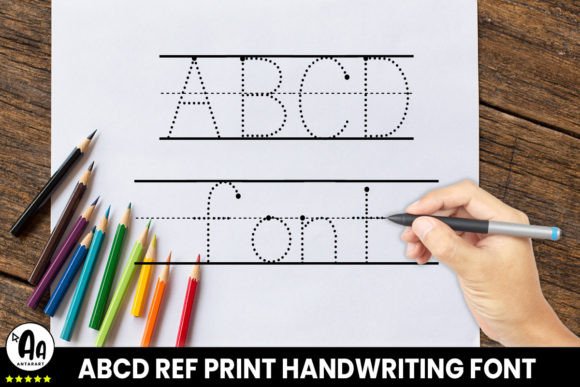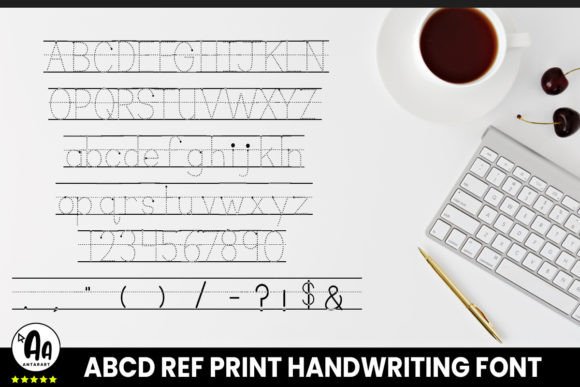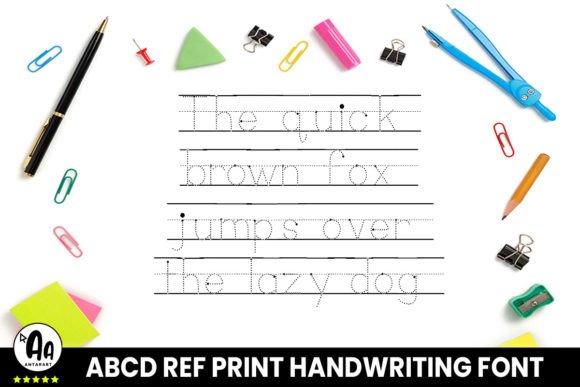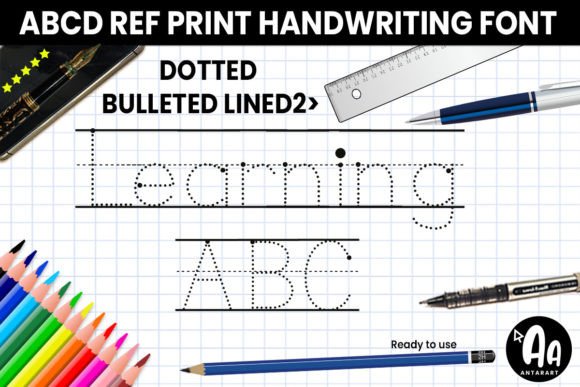
Unlock Creative Learning with Abcd Ref Dotted Bulleted Lined2 Font
Are you a designer, educator, or crafter looking for a fun and interactive way to teach or learn the print alphabet? Look no further than the Abcd Ref Dotted Bulleted Lined2 font, part of the ABCD Ref font family. This innovative dotted display font is based on the D’Nealian Method US school and offers a unique approach to creating engaging and educational materials.
What is Abcd Ref Dotted Bulleted Lined2 Font?
The Abcd Ref Dotted Bulleted Lined2 font is a specially designed font that allows users to create a wide range of worksheets and educational resources. Its unique dotted style is based on the D’Nealian Method, a handwriting approach that emphasizes the correct formation of letters and words. This font is perfect for creating interactive and enjoyable learning materials for children and adults alike.
Key Features of Abcd Ref Dotted Bulleted Lined2 Font
- Dotted Display Font: The Abcd Ref Dotted Bulleted Lined2 font features a distinctive dotted style that makes it easy to create eye-catching and engaging worksheets.
- Based on D’Nealian Method: This font is grounded in the D’Nealian Method US school approach, ensuring that learners develop proper handwriting skills.
- Create Thousands of Worksheets: With the Abcd Ref Dotted Bulleted Lined2 font, you can generate a vast array of worksheets, making it an excellent resource for educators and homeschoolers.
- Interactive and Enjoyable Learning: This font enables you to create interactive and fun learning materials, making it perfect for those who want to learn or teach the print alphabet in an engaging way.
The Abcd Ref Dotted Bulleted Lined2 font offers numerous benefits for designers and crafters, including:
- Unique and Creative Designs: With this font, you can create one-of-a-kind worksheets, posters, and other educational materials that stand out from the crowd.
- Ease of Use: The Abcd Ref Dotted Bulleted Lined2 font is easy to use and integrate into your designs, making it perfect for busy designers and crafters.
- Versatility: This font can be used for a wide range of projects, from educational resources to crafts and DIY projects.
Tips for Using Abcd Ref Dotted Bulleted Lined2 Font
Here are some tips for getting the most out of the Abcd Ref Dotted Bulleted Lined2 font:
- Experiment with Different Sizes and Colors: Try out different font sizes and colors to create visually appealing and engaging worksheets.
- Combine with Other Fonts: Combine the Abcd Ref Dotted Bulleted Lined2 font with other fonts to create unique and creative designs.
- Use for Various Projects: Don’t limit yourself to just worksheets – use this font for a variety of projects, such as posters, flyers, and crafts.
The Abcd Ref Dotted Bulleted Lined2 font is an excellent resource for designers, educators, and crafters looking to create engaging and interactive learning materials. With its unique dotted style and versatility, this font is sure to become a go-to tool for anyone looking to teach or learn the print alphabet in a fun and enjoyable way.